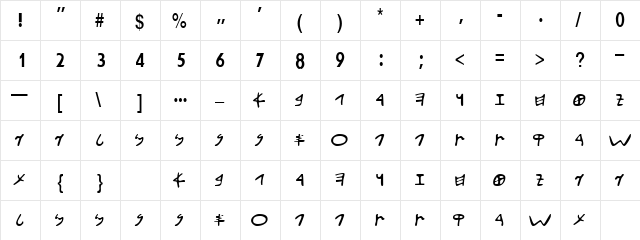
AramaicSSK Regular
Design Context for AramaicSSK Typeface
AramaicSSK takes a measured approach to typography — its balanced proportions and neutral character make it a reliable workhorse for both digital and print work.